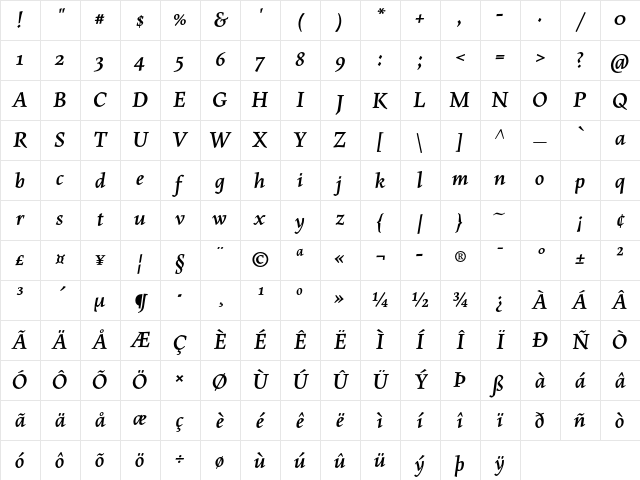
MaiolaPro Bold Italic
Foundry: FontShop International
Designer: Veronika Burian
MaiolaPro Family
MaiolaPro Bold Italic
Design Context for MaiolaPro
MaiolaPro is a composed and adaptable typeface that performs quietly and consistently across a wide range of design contexts. The slanted form adds forward momentum and visual energy. Its bold stroke weight gives it real presence on the page.
Pro Tip: Use MaiolaPro for emphasis, pull quotes, and subheadings where its slanted energy can add rhythm to the layout.